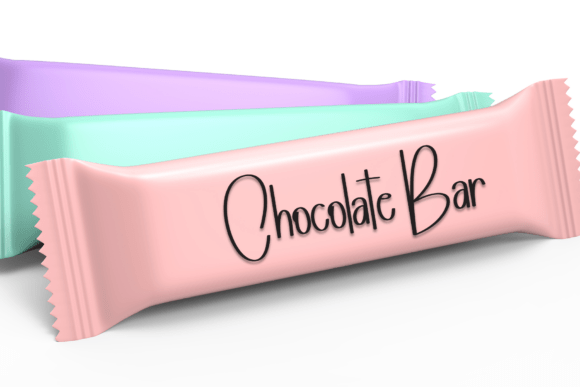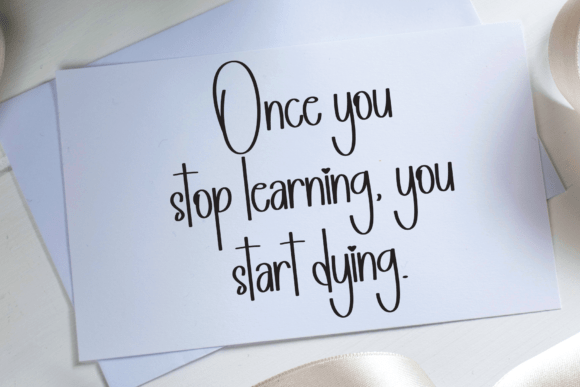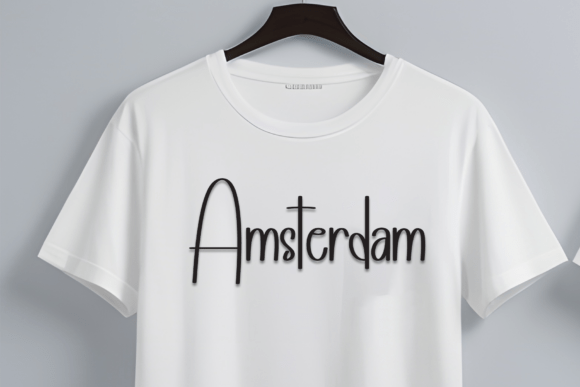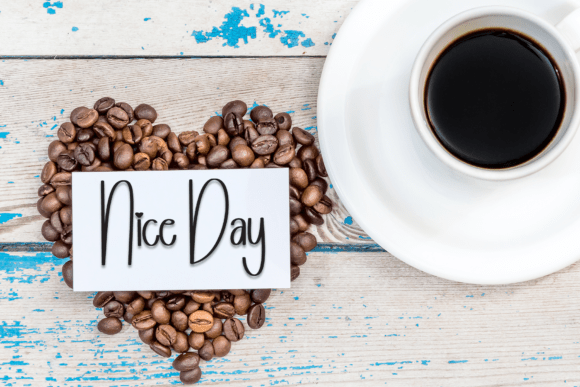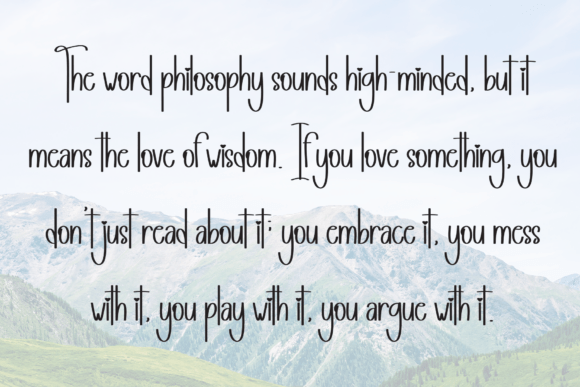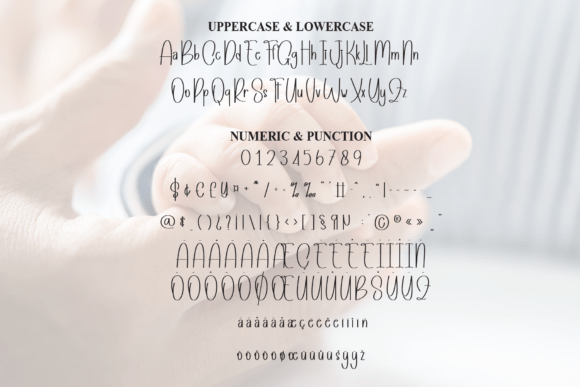
The Birth Font: A Sweet and Friendly Handwritten Display Font
Have you ever been in the middle of a design project, and suddenly, you’re stuck on finding the perfect font? I recall a recent experience where I was working on a wedding invitation design, and I just couldn’t seem to find a font that captured the sweet and playful vibe my client was looking for. That’s when I stumbled upon the Birth Font, and let me tell you, it was love at first sight! 💕
A Personal Review: What I Love About Birth Font
The Birth Font is a captivatingly charming handwritten display font that exudes a sweet and friendly vibe. Here are some things I absolutely love about it:
- ✨ Perfectly balanced between cuteness and fun, making it ideal for adding a light-hearted twist to your design ventures.
- ✅ Unique and distinctive character set that sets it apart from other fonts.
- 💖 Infuses an element of joy into any design, making it perfect for wedding invitations, cards, and other creative projects.
While I absolutely adore the Birth Font, there are a few minor quirks to be aware of:
- ⚠️ Some of the letters may appear a bit irregular or imperfect, which can be a deliberate design choice but might not be suitable for all projects.
- 🤔 Limited availability of certain OpenType features, which might limit its use in certain design software.
The Designer Inspiration Behind Birth Font
The Birth Font was designed with the intention of creating a unique and charming handwritten display font that captures the sweetness and playfulness of life’s special moments. Inspired by the joy of new beginnings, this font is perfect for designers who want to add a touch of whimsy to their creations.
Here are some frequently asked questions about the Birth Font:
| What is the Birth Font best used for? | The Birth Font is perfect for designs that require a sweet and playful touch, such as wedding invitations, cards, and other creative projects. |
| Is the Birth Font suitable for body text? | No, the Birth Font is best used as a display font for headings or titles. Its unique character set and irregularities make it less suitable for body text. |